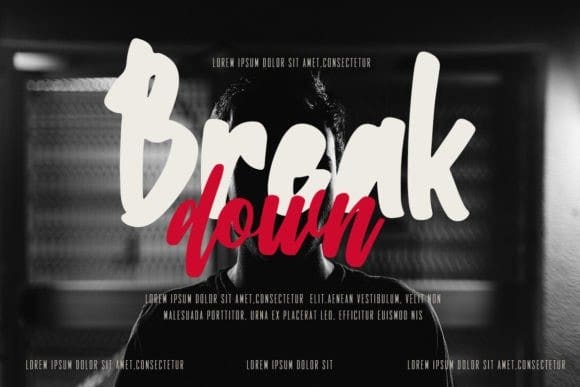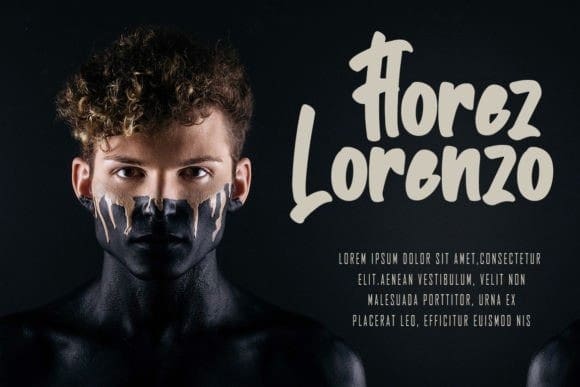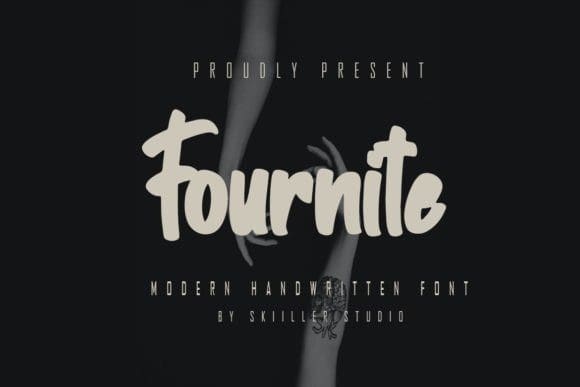
Fournite Font
Fournite Font is a modern handwritten display font, crafted to give your headlines and logotype projects a stylish touch. This font reads as strong, confident, and dynamic and can add tons of character to your designs.